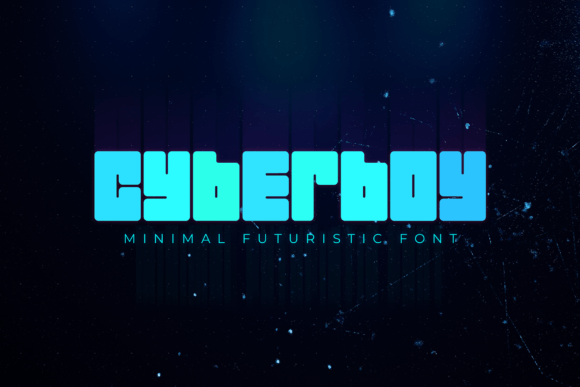
Journey into the realm of captivating typography with Cyberboy Font, a masterpiece from the creative minds at Mint Pixels. This display font exudes a bold and futuristic aura, making it the perfect choice for crafting captivating titles and headings that demand attention.
Immerse yourself in the world of gaming, where Cyberboy Font brings your digital dreams to life. Its sharp and angular strokes evoke a sense of technological prowess, making it the ultimate font for creating game titles, posters, and in-game graphics that leave a lasting impression.
Unleash your creativity and explore the boundless possibilities of music and entertainment with Cyberboy Font. Its dynamic and edgy character lends itself perfectly to designing eye-catching flyers, posters, and album covers that resonate with music lovers and art enthusiasts alike.
Step into the world of cinema and let Cyberboy Font take your movie posters and titles to new heights. Its bold and commanding presence captivates audiences, creating a sense of anticipation and excitement that sets the stage for an unforgettable cinematic experience.
Don't settle for ordinary fonts. Embrace the extraordinary with Cyberboy Font. Its unique and captivating style will transform your designs into show-stopping masterpieces that leave a lasting impact on your audience.